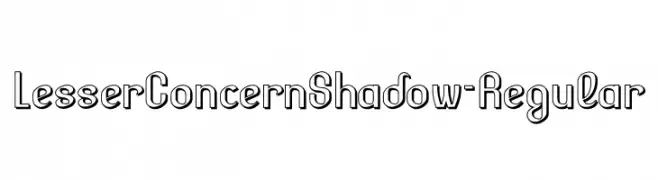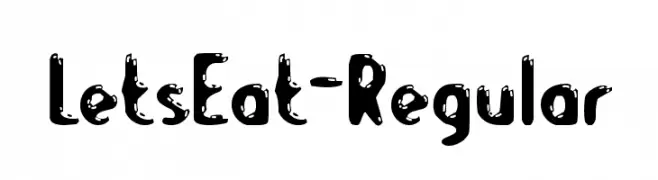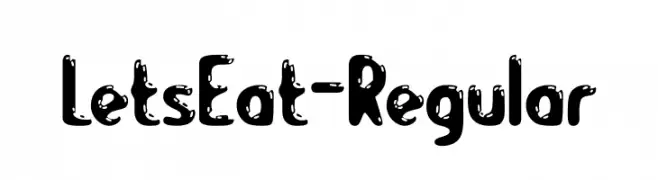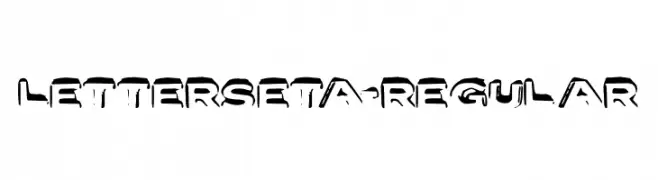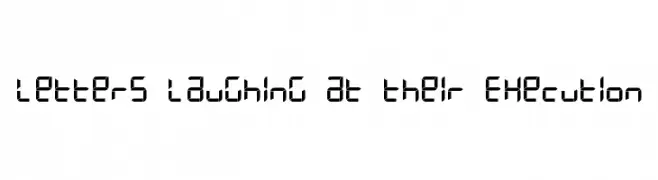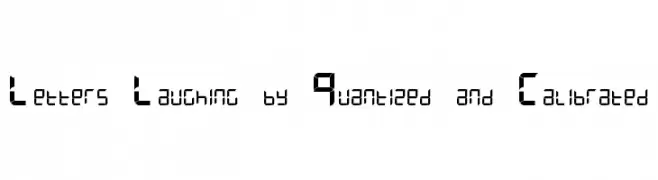
A modern vintage font with tall, narrow letterforms and art deco influences.
A geometric font with a shadow effect, offering a bold and three-dimensional appearance.
A bold, shadowed font with a three-dimensional, geometric style.
A bold, playful font with a distressed, dynamic texture.
A playful, bold font with a dripping, textured appearance.
A digital, segmented font inspired by LED displays, perfect for tech-themed projects.
A digital, segmented font with a futuristic, LED display style.
A bold, geometric font with a futuristic and abstract design.
A bold, distressed stencil font with an industrial feel.
A bold, stencil-like font with a modern, industrial feel.